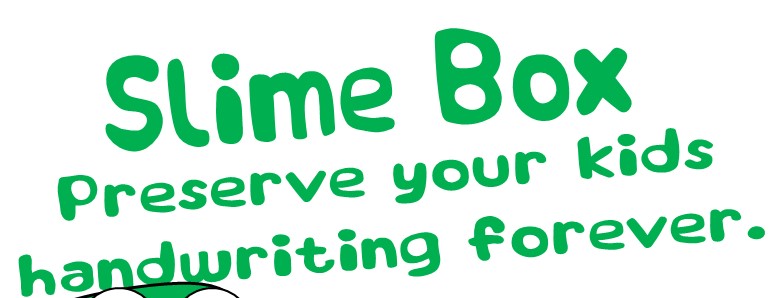
Slime Box Font
Slime Box Font is considered because of the tremendous font for present day-day use in the adobe, actually going to get the pinnacle-notch belief approximately it.
A completely well-known content material fabric creator from wonder font the all proper reserved for this fashionable typeface. And he creates it for bank gothic font present-day writing and springs underneath the class of Kawaii font.